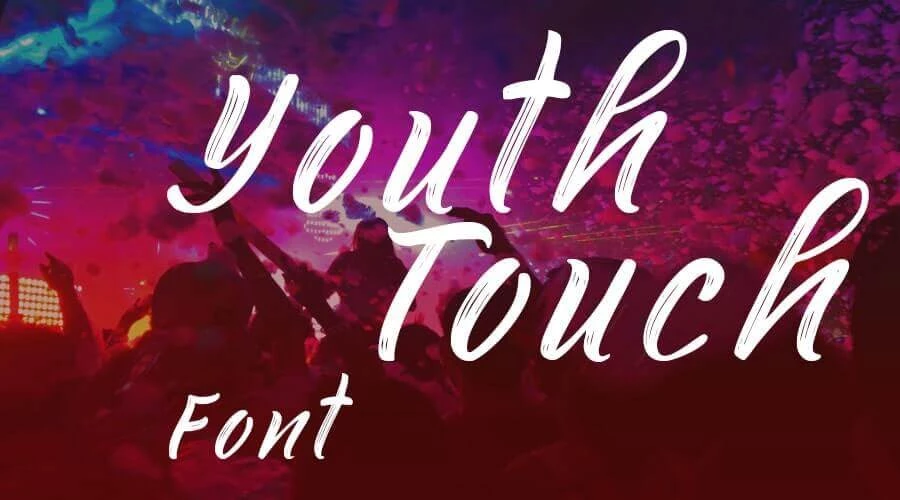
Youth Touch Font
The world of typography is vast and diverse, but few fonts manage to capture the spirit of youthful exuberance quite like the Youth Touch Font. This script brush font, designed by the talented team in 2018 at Herofonts, is a testament to the power of design in capturing and expressing emotion.
It supports basic Latin characters and some punctuation marks. The Font is a TrueType lettering font with 302 glyphs and 314 characters. It has a smooth and natural look that mimics the handwriting of a young and creative person. The font is easy to read and versatile, as it can fit different themes and moods. You can use it to create eye-catching headlines, catchy slogans, or cute messages.
Effectivity of the Font
The Youth Touch Font’s unique style makes it effective in a variety of contexts. Its brush script design lends a personal, handmade touch to projects, making it ideal for logos, branding, posters, and social media graphics. Its youthful and energetic vibe can help to attract and engage a younger audience.
The Youth Touch Font is more than just a typeface—it’s a tool for expression. Its brush script design and youthful vibe make it a versatile and appealing choice for a range of projects. So why wait? Start exploring the possibilities with the Youth Touch Font today!